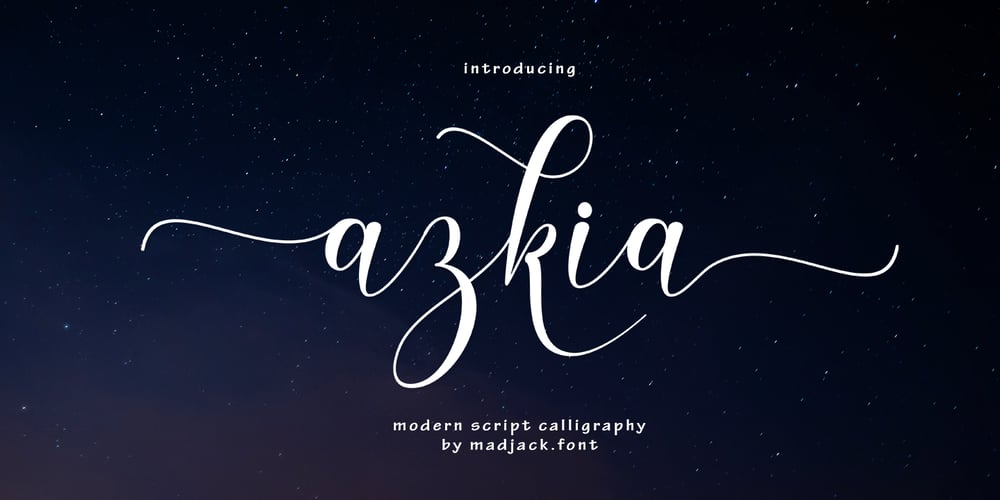
Azkia Script
Azkia Script font
Azkia Script Font Family was designed by Zaki Muhammad and published by madjack.font. Azkia Script contains 1 styles and family package options. Azkia Script is a beautiful and lovely script font with many alternative styles, ligatures, swashes, and multilingual glyphs.Azkia is a script typeface with a noble vintage look. Created in response to current graphic design trends. Get inspiration from classic labels, vintage packaging, and vintage sign painting. This Brightina script will add a touch of worldly knowledge to your artwork. The classic nuance is perfect for those of you who need fonts, especially for logos, clothing, signage, branding, packaging, advertising, and others. I’ve designed a number of examples, so you can see how they’re used.Azkia Script also has many alternatives for ascender, descenders, swash, and ligature. It also has several options for tails and underscores. To provide a huge number of possibilities to play with and come up with some unique designs.Azkia Script comes complete with:• Uppercase, lowercase, numbers, punctuation & symbols• Multilingual support• Alternative styles• Swash• BinderIf you have any problems, questions or anything about my fonts, please send us an email.